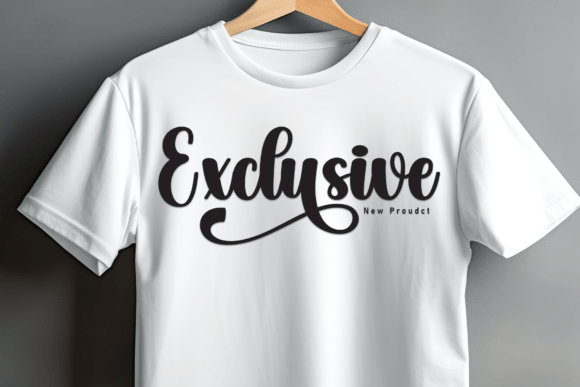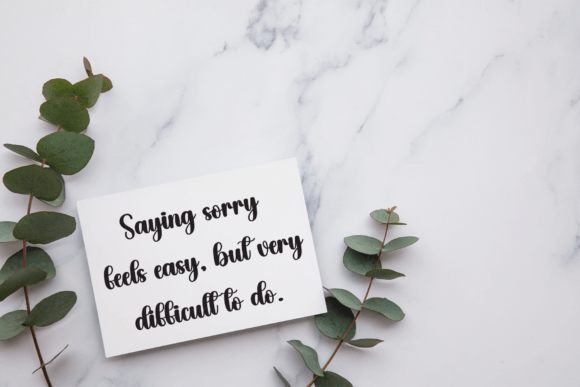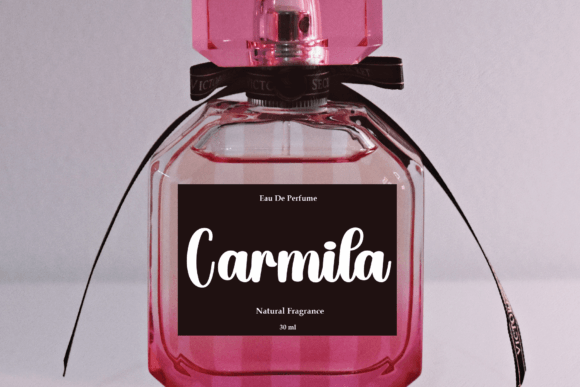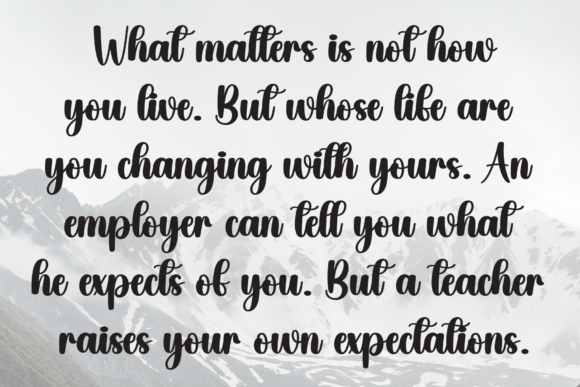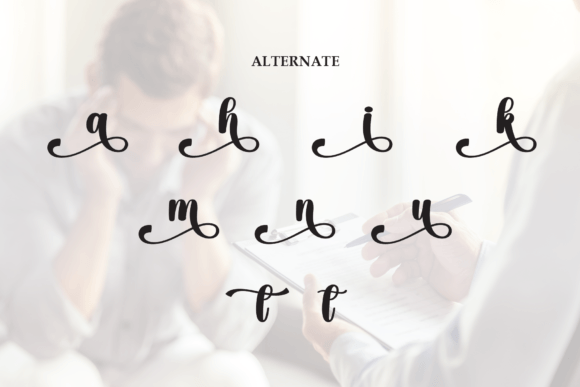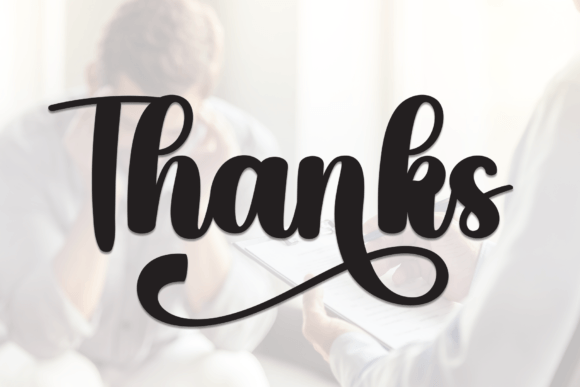
Introduction to Mentality Font
Have you ever found yourself in the midst of a creative project, pouring your heart and soul into it, only to be stuck on the perfect font to bring it all together? That’s where the magic of the Mentality Font comes in – a true game-changer for designers looking to elevate their work to the next level.
| 👤 Author | Roronoa zoro.S.P.D |
With its exquisite handwritten design, the Mentality Font seamlessly blends classic calligraphy with a modern twist, making it the perfect choice for any creative project. Whether you’re working on a free download or a high-quality design, this font is sure to make a statement. Its transparent background allows for endless possibilities, making it a valuable resource for designers looking to add a touch of sophistication to their work.
From logos to typography, the Mentality Font is a versatile design resource that will help take your projects to new heights. So why settle for ordinary when you can have extraordinary? Let the Mentality Font be your go-to choice for any design challenge that comes your way.
Key Features of Mentality Font
- High-quality design: Mentality Font is crafted with attention to detail, ensuring a professional and polished look for any creative project.
- Transparent background: The font’s transparent background allows for seamless integration with various design elements and backgrounds.
- Resolution: The font is designed to be scalable, with a resolution of 300 DPI, making it suitable for high-resolution printing and digital applications.
- Unique characteristics: Mentality Font features a unique blend of modern and minimalist design elements, making it an excellent choice for creative projects that require a touch of sophistication.
- Size: The font family includes a range of weights and styles, from Light to Bold, allowing designers to choose the perfect font size for their project.
Honest Review: Mentality Font
As a designer, I’ve had the chance to experiment with various fonts for my creative projects. Recently, I came across the Mentality Font, and I must say it’s been a refreshing addition to my design resource library.
What works well about Mentality Font is its clean and modern aesthetic. It’s perfect for titles, headings, and even body text, making it a great all-around choice for designers. I also appreciate the high quality of the font, with a transparent background that allows for seamless integration with any background image or color.
- ✨ Clean and modern design
- ✨ Great for titles, headings, and body text
- ✨ High-quality font with transparent background
Overall, I’m impressed with the Mentality Font, and I would recommend it to designers looking for a high-quality, modern font for their creative projects. Just be sure to check the licensing terms before using it for commercial purposes.
Mentality Font
Tips for Getting the Most Out of Mentality Font
To get the most out of the Mentality Font, make sure to:
- Use it with a transparent background for a clean and modern look.
- Experiment with different font sizes and styles to find the perfect fit for your design.
- Combine it with other design elements, such as images and graphics, to create a visually appealing design.
The Mentality Font is perfect for:
- Social media graphics and posts.
- Posters and flyers for events and promotions.
- Business cards and logos for small businesses and entrepreneurs.